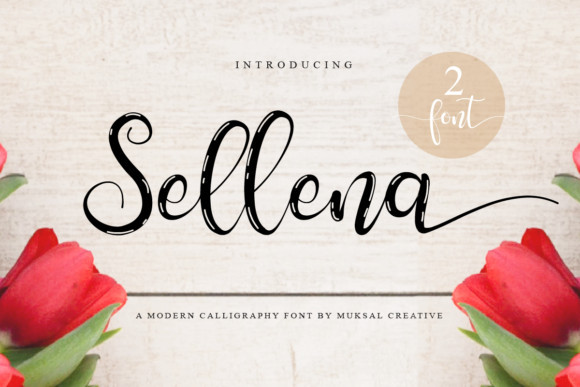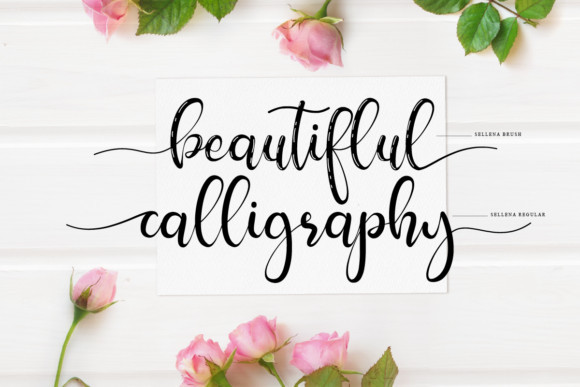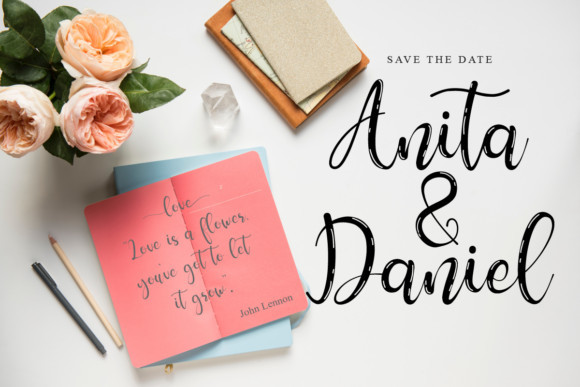
Sellena Font
Sellena is an elegant and delicate handwritten font. It looks stunning on wedding invitations, thank you cards, quotes, greeting cards, logos, business cards and every other design which needs a handwritten touch. It features a varying baseline, smooth lines, gorgeous glyphs and stunning alternates.